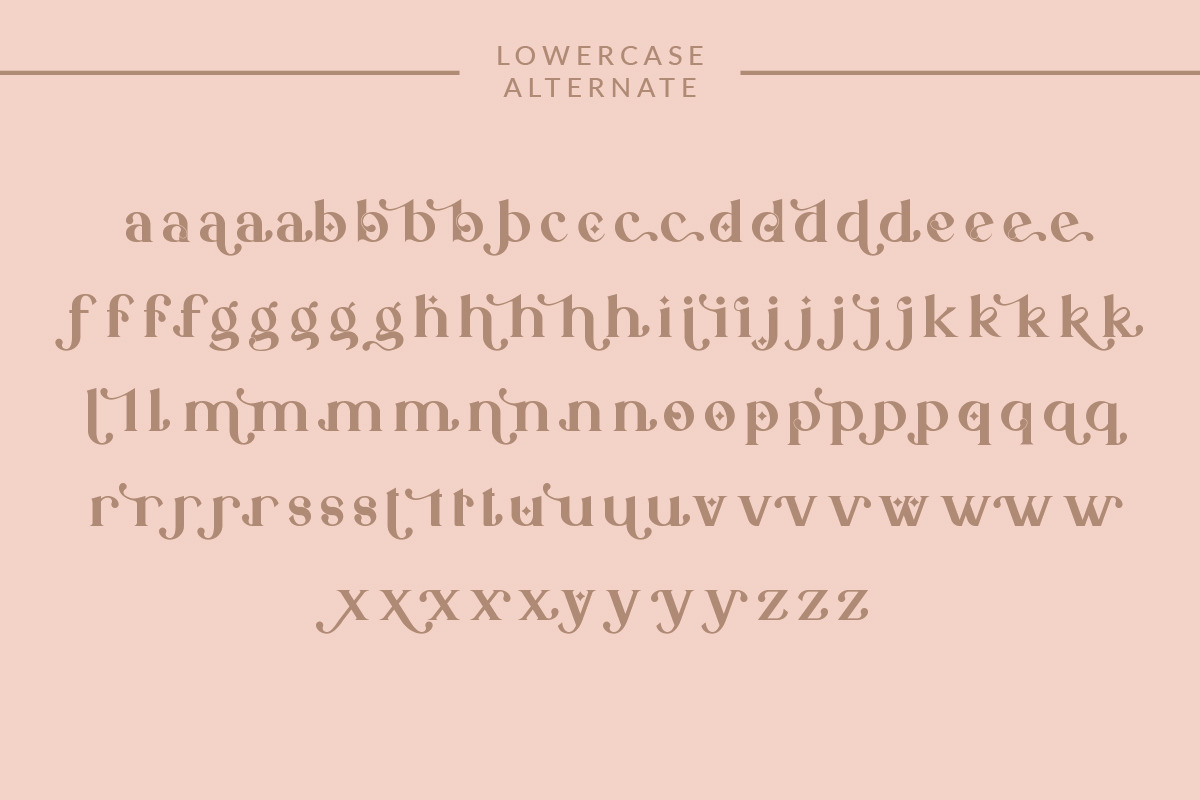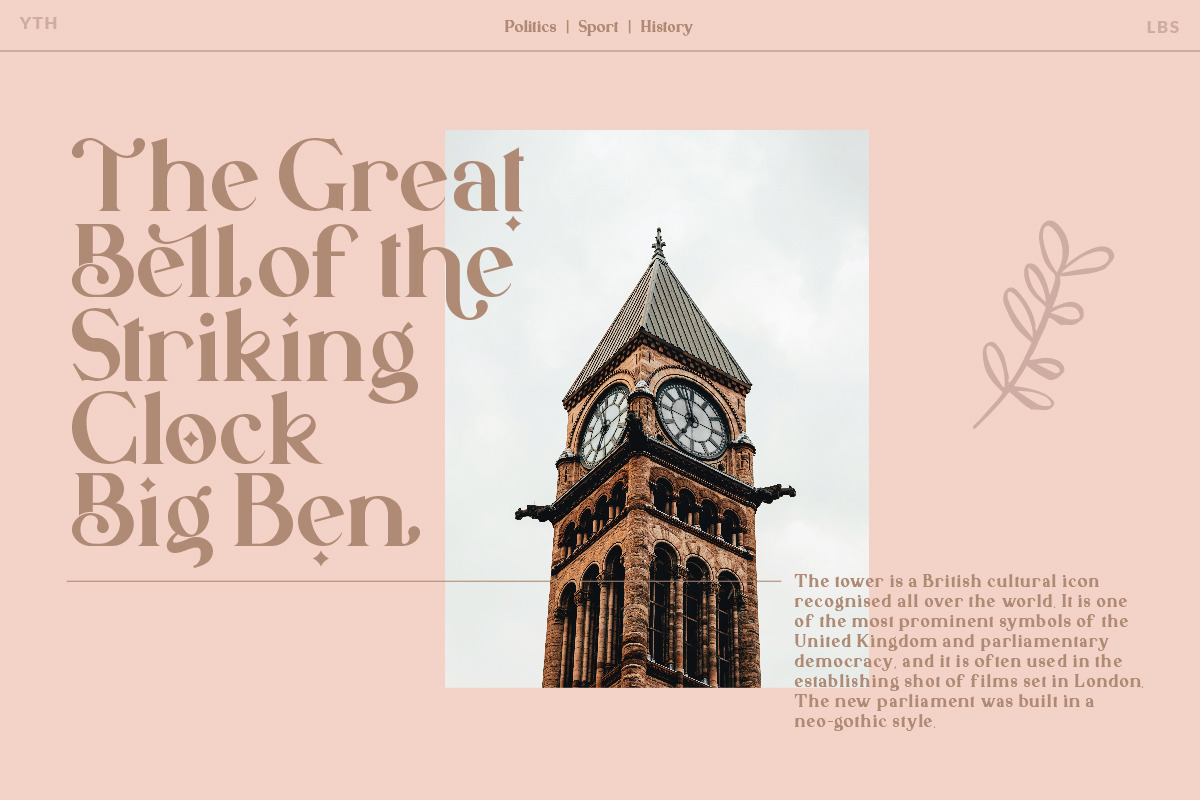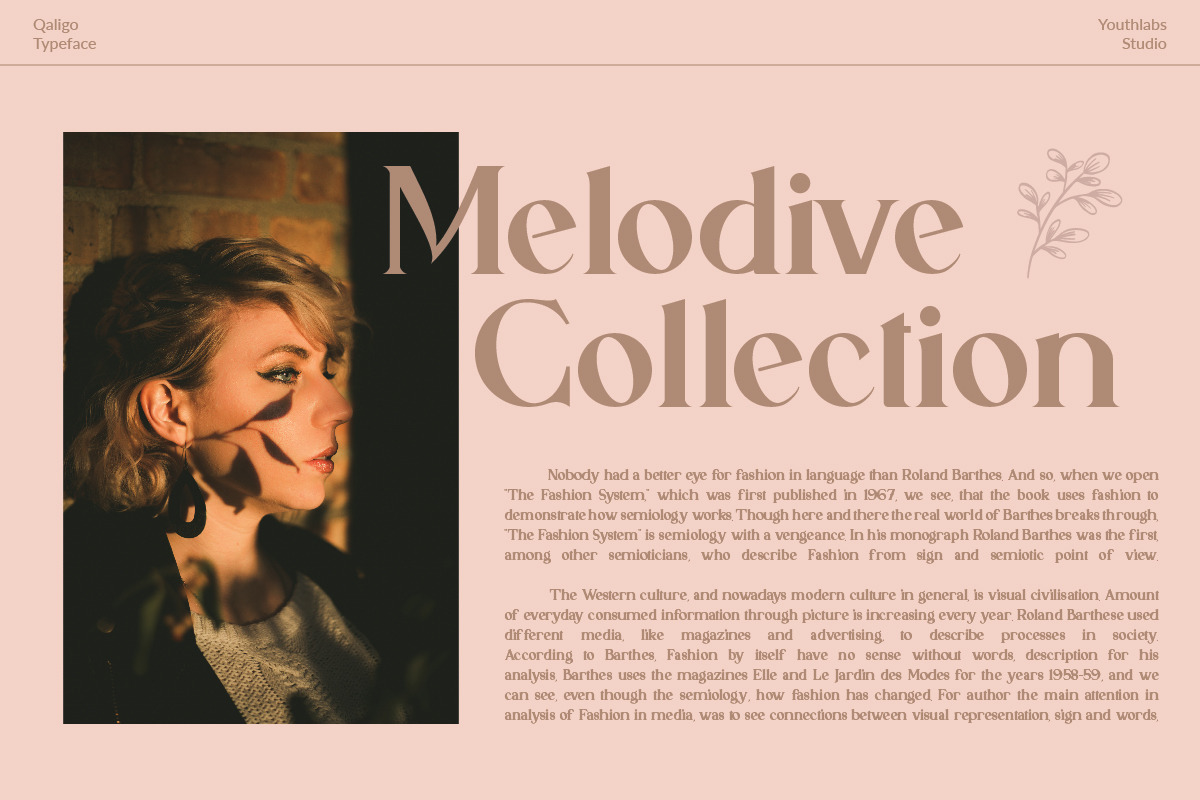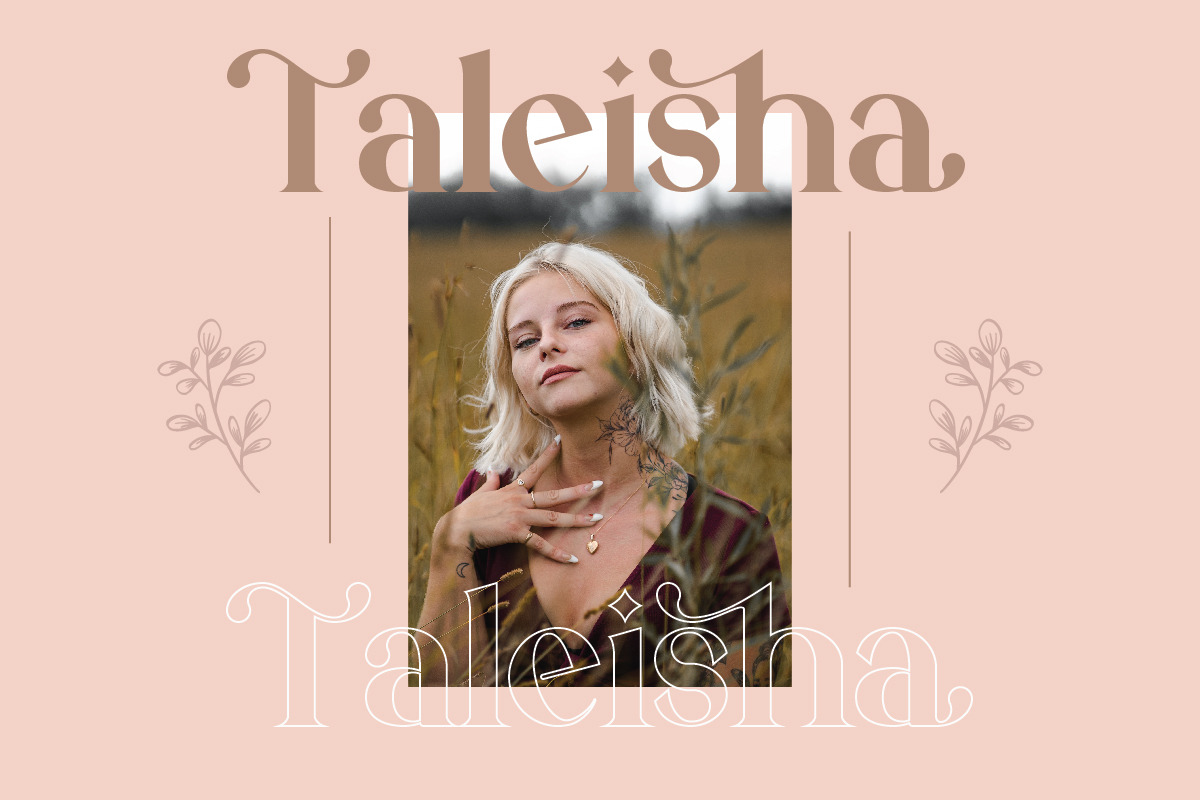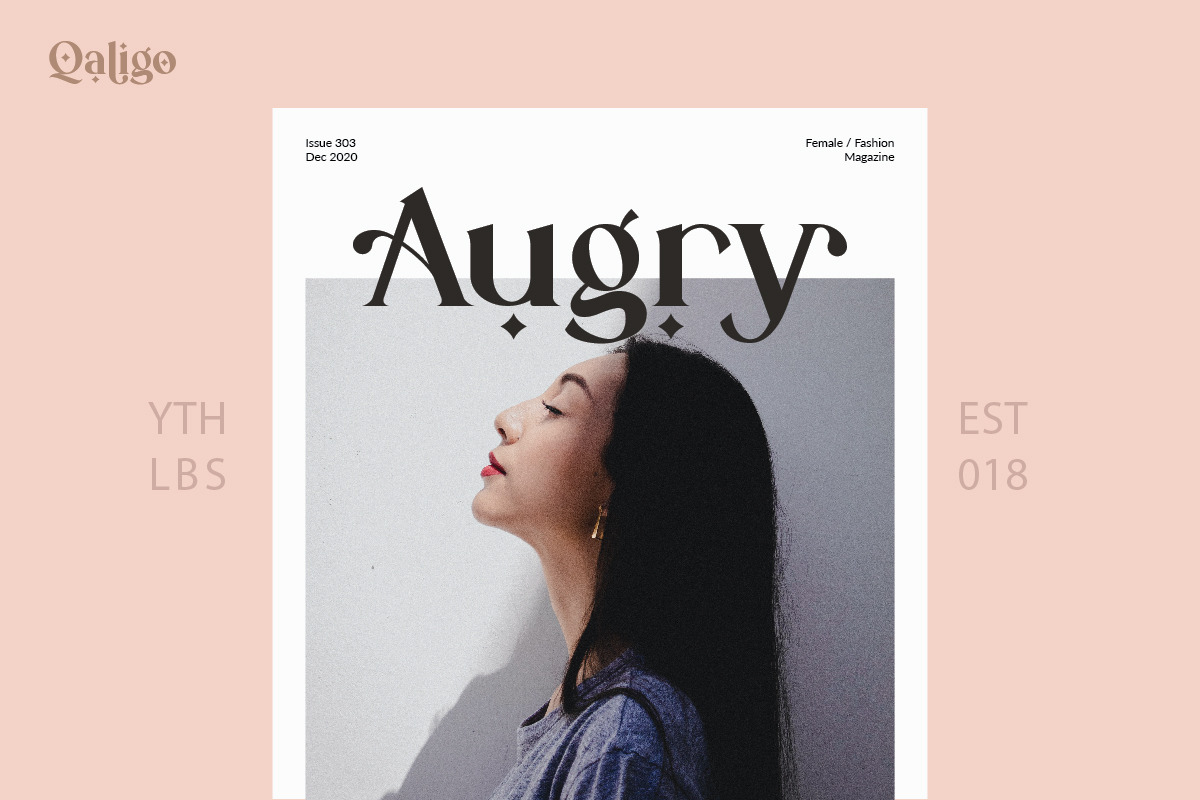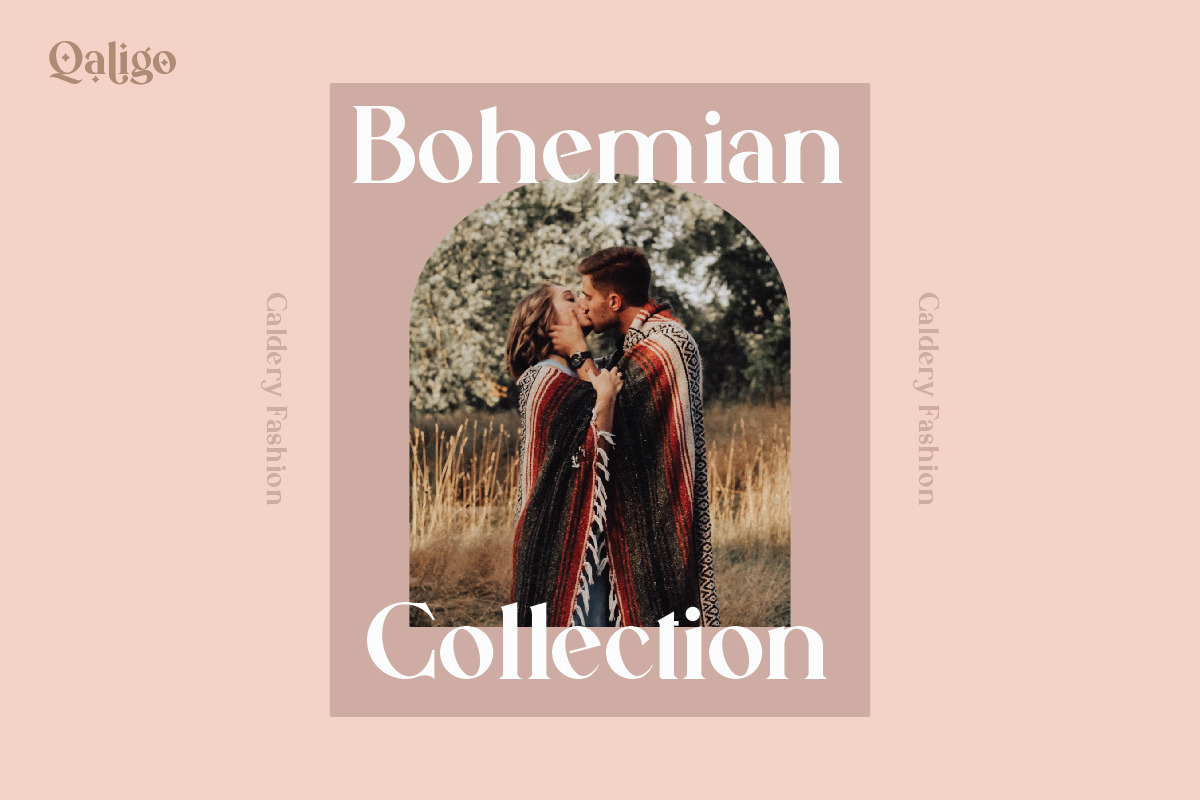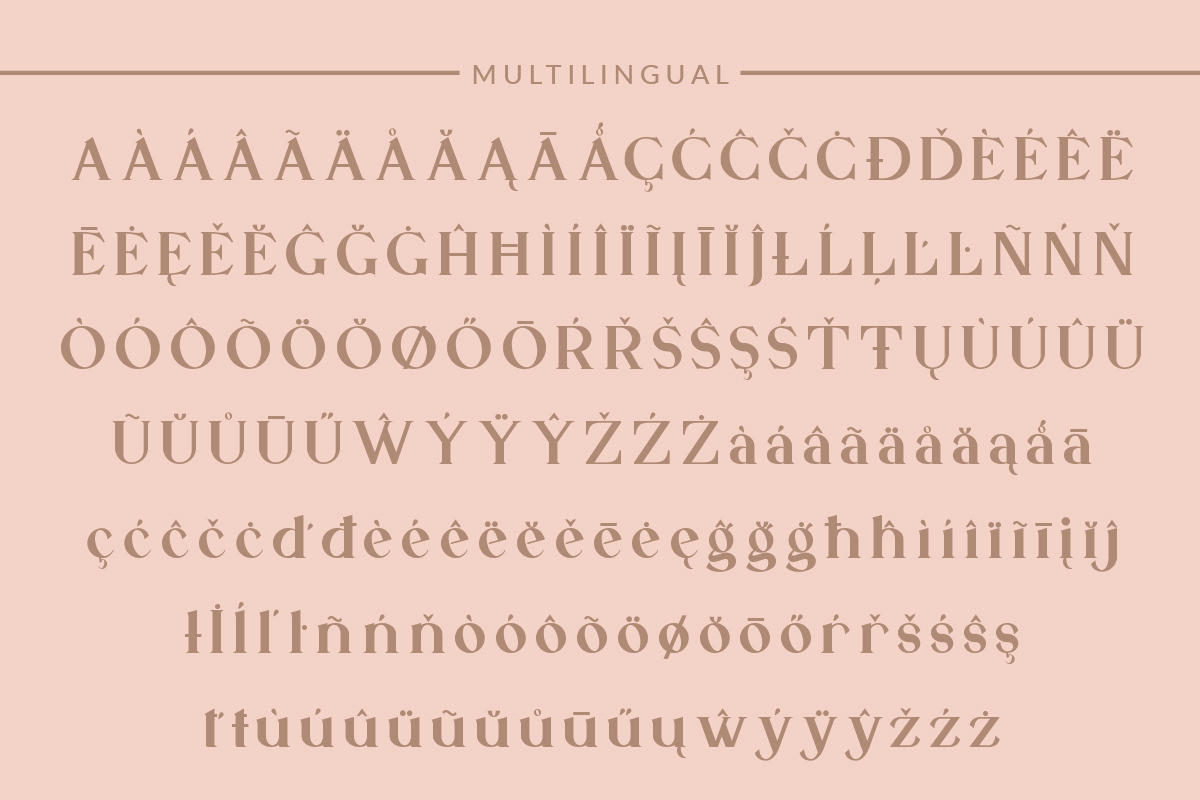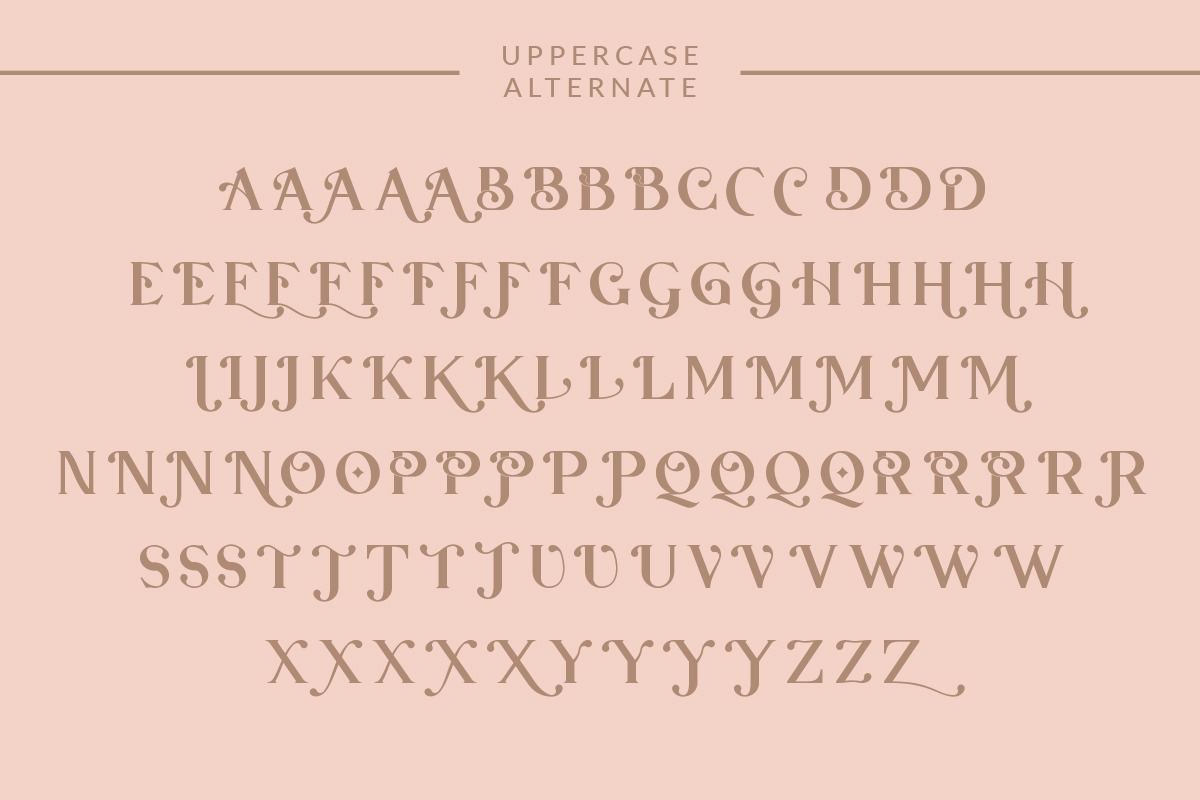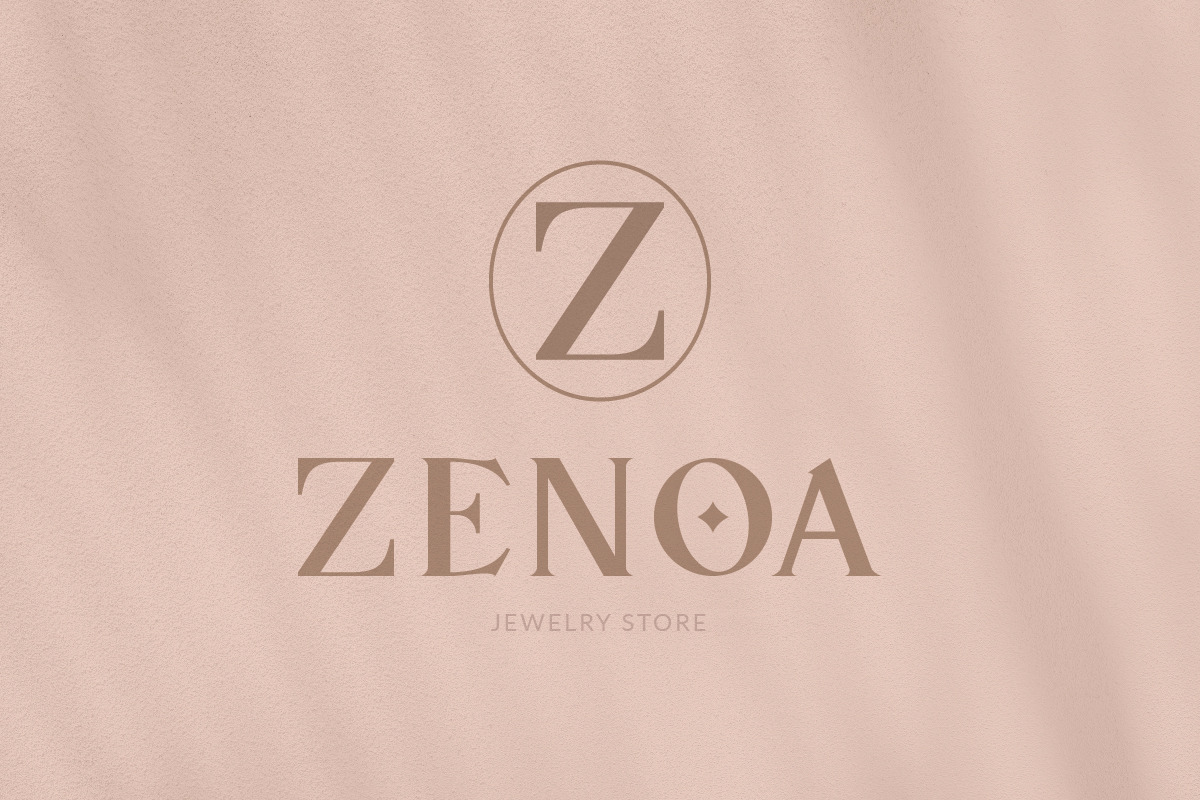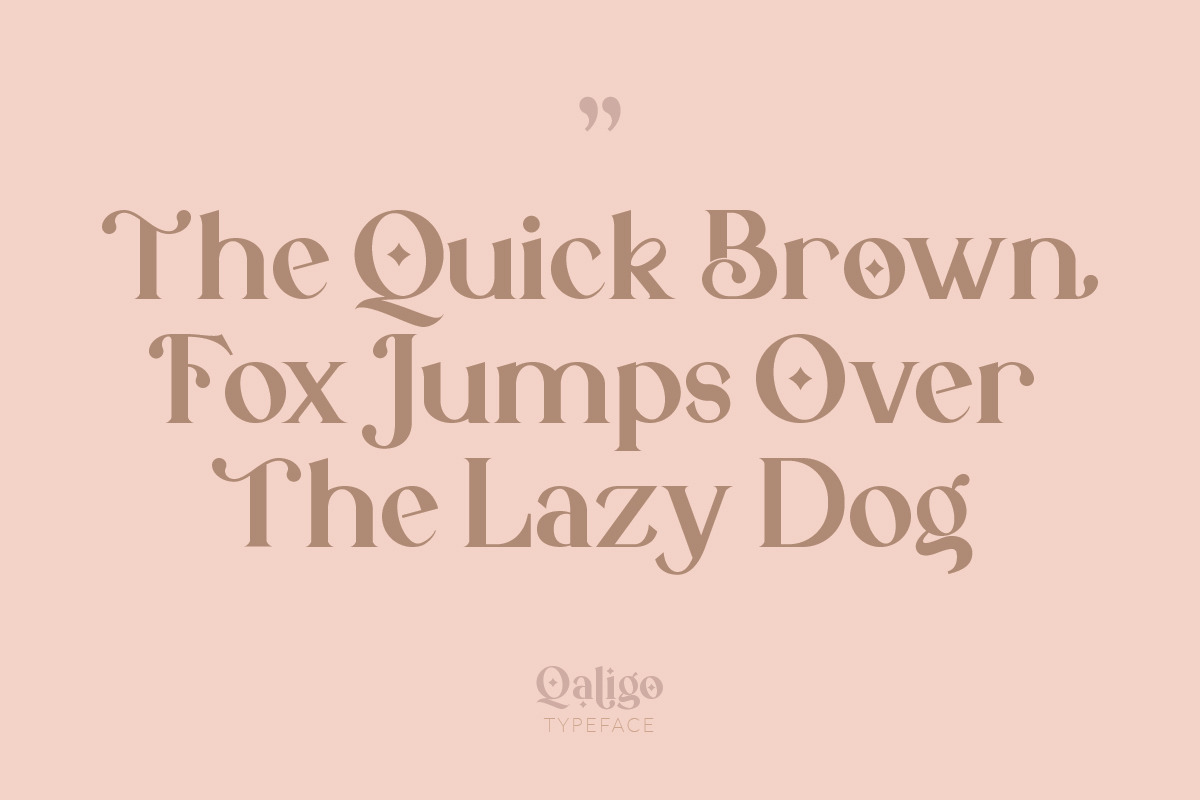
Qaligo | Elegant Serif Font
Introducing Qaligo Serif Font - A Brand New Serif Font with Luxury Shape, More Opentype Feature, more neat curves
Qaligo Serif Font Inspired by Modern and Luxury Typography. Qaligo Serif Font is a very versatile font. you can use this font to various design. Basics can improve more than 250 alternates character where can collaborate with premade logos.
Qaligo Serif Font support 24 Language : Afrikaans Albanian Catalan Croatian Czech Danish Dutch English Estonian Finnish French Hungarian Italian Lithuanian Maltese Norwegian Polish Portugese Slovak Slovenian Spanisch Swedish Turkish Zulu
What's the Feature ?
- More than 100 Uppercase Alternate
- More Than 100 Lowercase Alternate
- 24 Language Support
- Stylistic Alternate